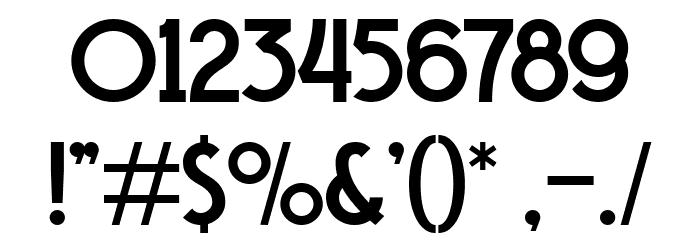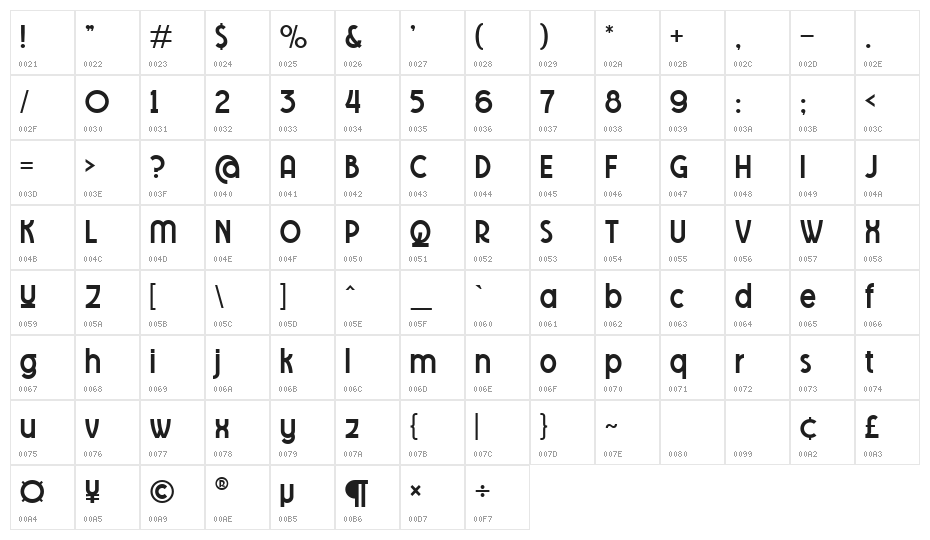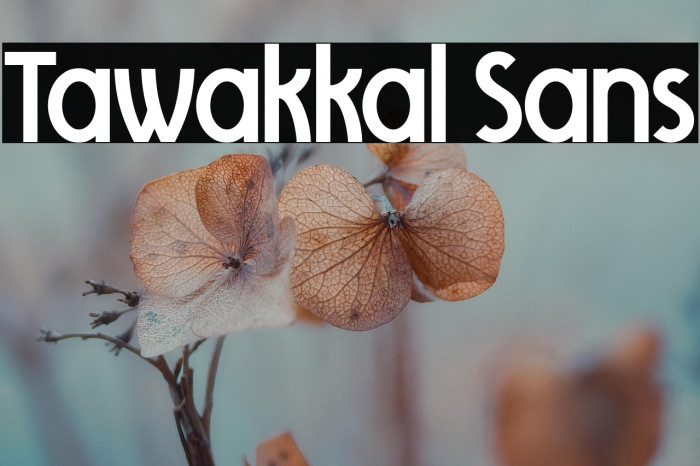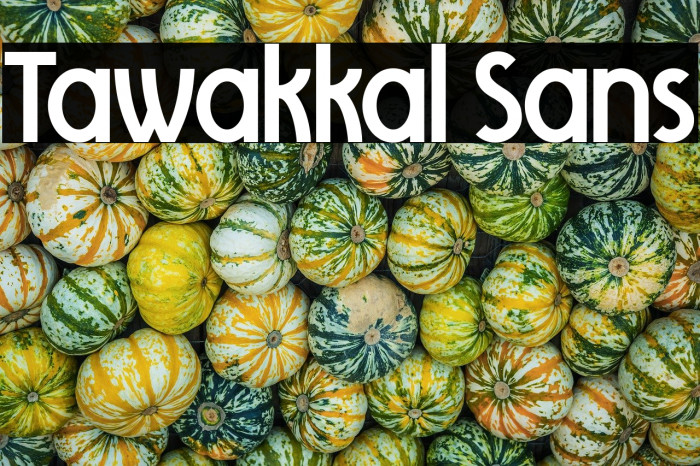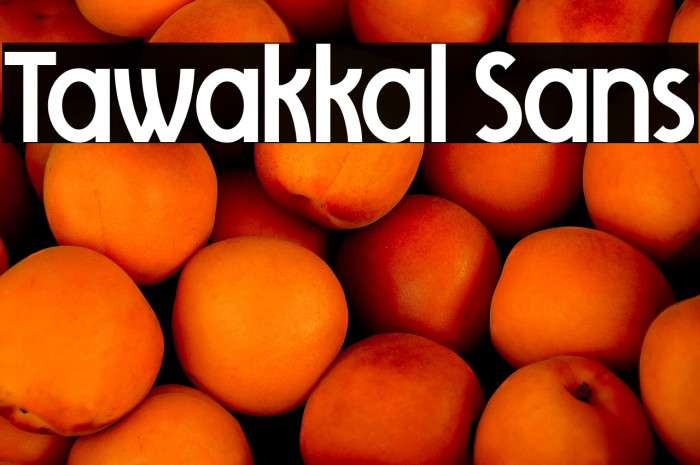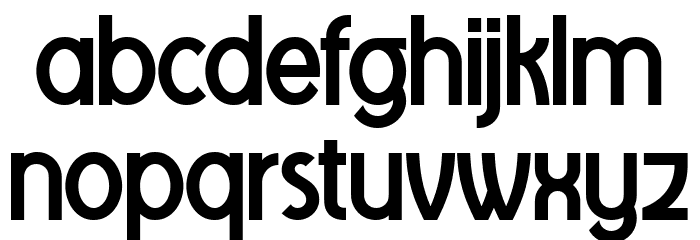
Tawakkal Sans Font
Tawakkal Sans Description
This font features a bold and modern sans-serif style with clean, geometric lines and a strong presence. The uppercase letters are uniform in height, with a slight curvature that adds a touch of softness to the otherwise robust design. The lowercase letters maintain a consistent style, offering a harmonious flow between characters. Numbers are clear and easily distinguishable, making them suitable for various applications. Special characters are designed to match the overall aesthetic, ensuring a cohesive look across all text elements. The font's simplicity and clarity make it versatile for both digital and print media.
| Proposed Projects | Ideal for branding, advertising, headlines, and digital interfaces where clarity and impact are essential. |